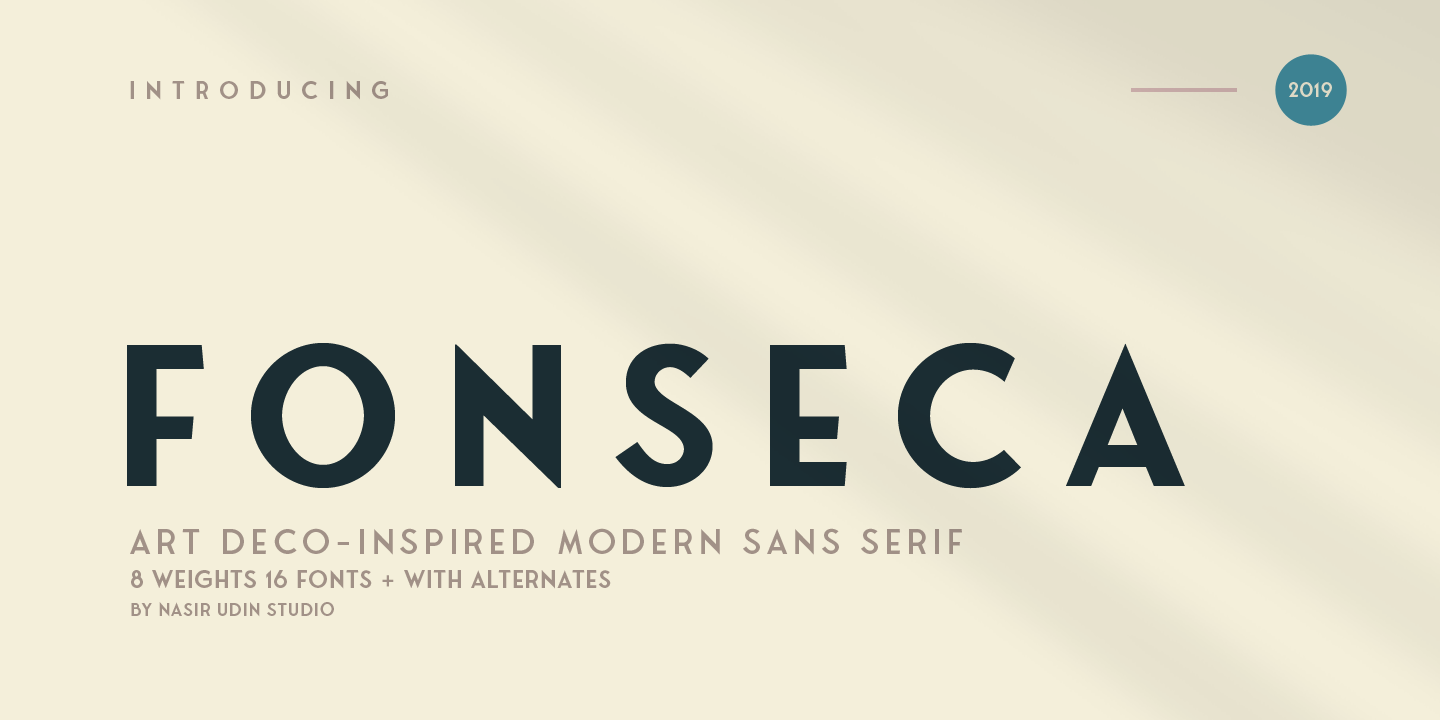
The Fonseca Font excels in artisanal branding, craft beverage packaging, cultural heritage projects, boutique restaurant identities, handmade product labels, traditional festival materials, vintage-inspired designs, and authentic brand communications that require distinctive character with artisanal sophistication.
What makes the Fonseca Font Free Download so exciting is its exceptional ability to capture the essence of traditional craftsmanship while maintaining contemporary functionality and appeal. This typeface embodies the spirit of artisanal excellence, featuring carefully crafted letterforms that suggest handmade quality and authentic heritage. Its distinctive character shapes and organic proportions create an immediate sense of warmth and authenticity that resonates with consumers seeking genuine, quality-focused brands in an increasingly digital world.
The Fonseca Font family encompasses multiple weight variations from Light to Bold, each preserving the font's signature artisanal character and authentic appeal. The collection includes Regular, Medium, Semibold, and Bold styles with corresponding italic variants that enhance the font's expressive capabilities. This comprehensive font system provides designers with versatile typography that works beautifully across packaging, signage, digital applications, and print materials while maintaining the distinctive personality that communicates craftsmanship and quality.
Perfect for craft breweries, artisanal food producers, cultural organizations, and brands emphasizing traditional values and authentic quality. The font's heritage appeal makes it essential for package designers, brand strategists, and creative professionals developing communications that must convey authenticity, craftsmanship, and cultural connection. Download Fonseca Font Free Download today and bring authentic artisanal character to your projects with this exceptional typeface that celebrates traditional craftsmanship in contemporary design applications.